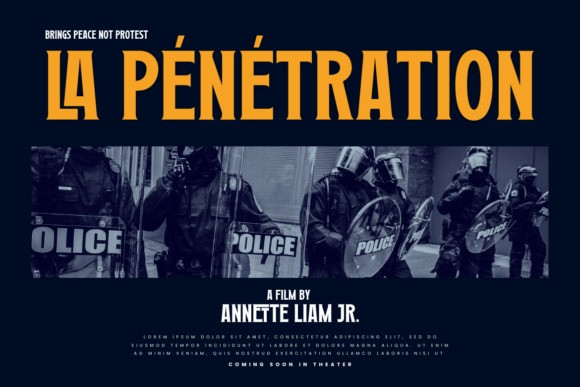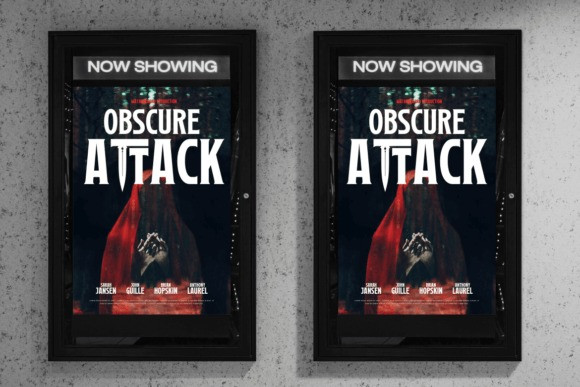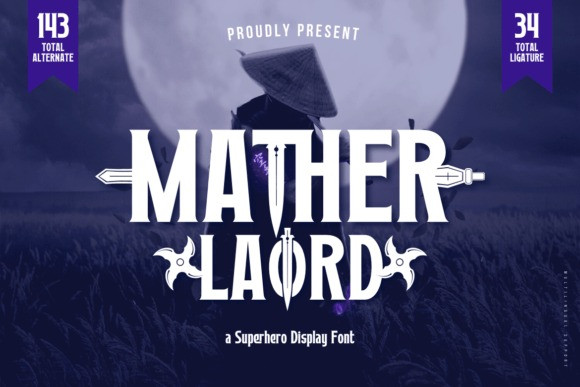
Mather Laord Font
Mather Laord Display Font is a superhero and attractive display font that packs a punch with its bold and dynamic letterforms. This font features a strong and powerful presence that adds a touch of heroism to any design project. Perfect for creating impactful headlines, posters, or any project that requires a sense of strength and action. Unleash your creative powers with this awesome font.